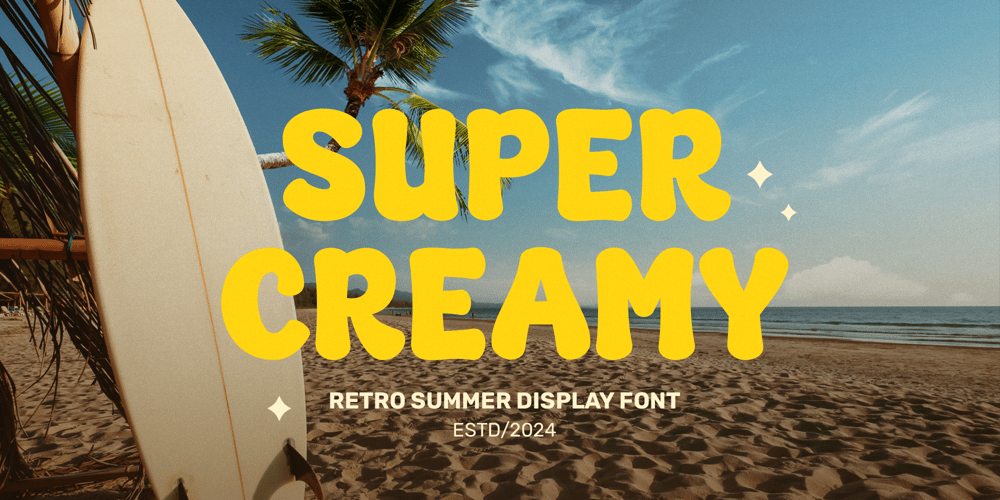
Super Creamy
Super Creamy font
Super Creamy Font Family was designed by Ali Hamidi and published by Ali Hamidi. Super Creamy contains 1 styles and family package options. Super Creamy: Dive into Delicious DesignSuper Creamy is a font that’s as delightful as its name. It combines playful round letters with a groovy, hand-drawn twist, creating a design that’s both bold and fancy.